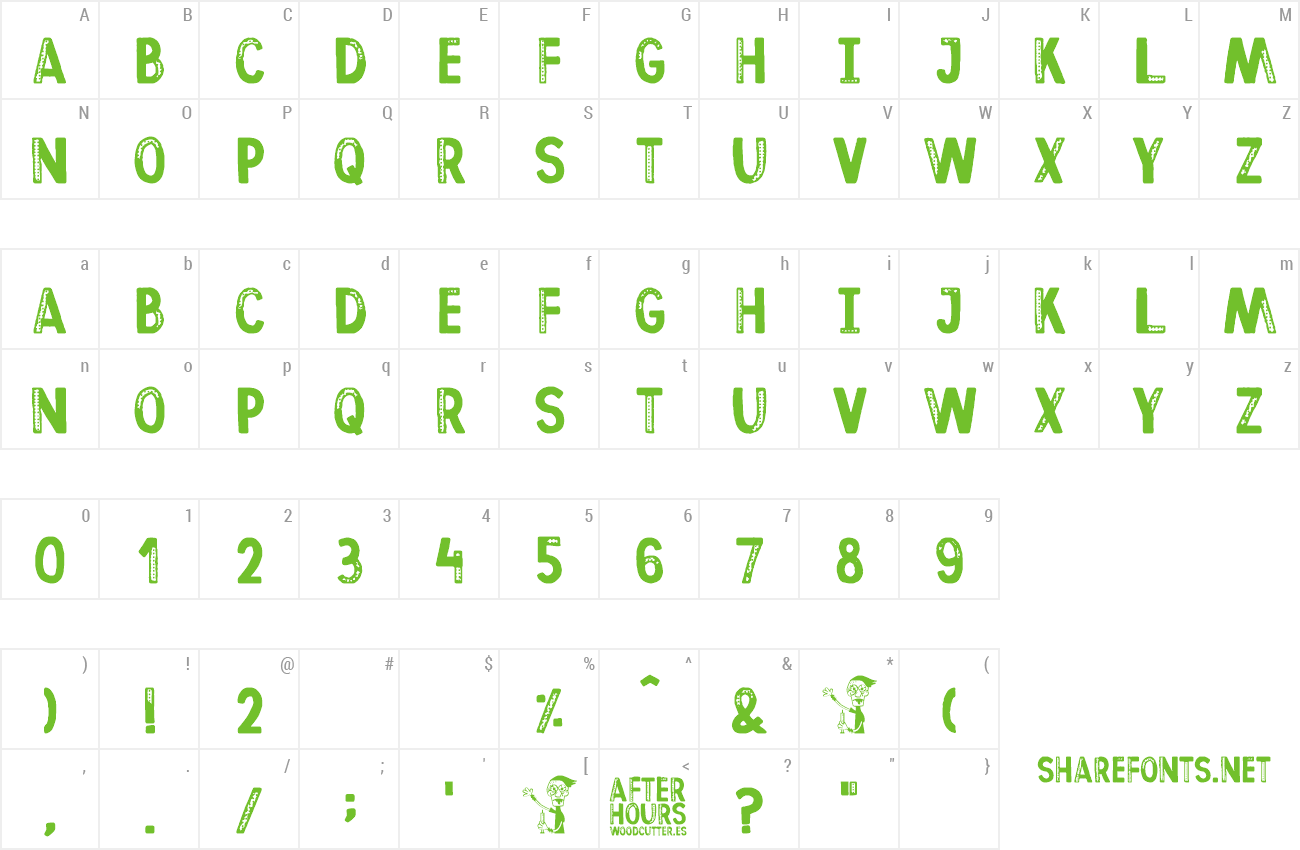
After Hours Font
After Hours Font - Web the weeknd after hours font. Archive of freely downloadable fonts. Web the time is now 13:42. The font is licensed for personal. Can you please identify this font ? Browse by alphabetical listing, by style, by author or. Web download the after hours font by ace fonts, a distorted and eroded font with faded grunge effects.
The font is licensed for personal. Web the weeknd after hours font. Web the time is now 13:42. Web download the after hours font by ace fonts, a distorted and eroded font with faded grunge effects. Archive of freely downloadable fonts. Can you please identify this font ? Browse by alphabetical listing, by style, by author or.
Web the weeknd after hours font. Archive of freely downloadable fonts. Browse by alphabetical listing, by style, by author or. Can you please identify this font ? Web the time is now 13:42. The font is licensed for personal. Web download the after hours font by ace fonts, a distorted and eroded font with faded grunge effects.
Afterhours Font Download
Browse by alphabetical listing, by style, by author or. Web the weeknd after hours font. Web the time is now 13:42. The font is licensed for personal. Web download the after hours font by ace fonts, a distorted and eroded font with faded grunge effects.
After Hours Font YouWorkForThem After hours, Hipster fonts
Archive of freely downloadable fonts. Web the weeknd after hours font. Can you please identify this font ? Web the time is now 13:42. Web download the after hours font by ace fonts, a distorted and eroded font with faded grunge effects.
After Hours Font Free Fonts
The font is licensed for personal. Web the time is now 13:42. Web download the after hours font by ace fonts, a distorted and eroded font with faded grunge effects. Browse by alphabetical listing, by style, by author or. Archive of freely downloadable fonts.
After Hours font by BLKBK Fonts FontRiver
Web the time is now 13:42. Web download the after hours font by ace fonts, a distorted and eroded font with faded grunge effects. Can you please identify this font ? Web the weeknd after hours font. Archive of freely downloadable fonts.
After Hours main title Fonts In Use
Archive of freely downloadable fonts. Can you please identify this font ? Web the weeknd after hours font. The font is licensed for personal. Web download the after hours font by ace fonts, a distorted and eroded font with faded grunge effects.
Download free After Hours Regular font
Browse by alphabetical listing, by style, by author or. Can you please identify this font ? Web the weeknd after hours font. Archive of freely downloadable fonts. The font is licensed for personal.
Afterhours Font download free
Web the weeknd after hours font. Web the time is now 13:42. Can you please identify this font ? Web download the after hours font by ace fonts, a distorted and eroded font with faded grunge effects. Browse by alphabetical listing, by style, by author or.
After Hours Font 1001 Free Fonts
Browse by alphabetical listing, by style, by author or. The font is licensed for personal. Web the weeknd after hours font. Archive of freely downloadable fonts. Web the time is now 13:42.
After Hours Regular Download For Free, View Sample Text, Rating And
Web download the after hours font by ace fonts, a distorted and eroded font with faded grunge effects. Browse by alphabetical listing, by style, by author or. Web the time is now 13:42. The font is licensed for personal. Archive of freely downloadable fonts.
Web download the after hours font by ace fonts, a distorted and eroded font with faded grunge effects. The font is licensed for personal. Web the time is now 13:42. Archive of freely downloadable fonts.
Web The Weeknd After Hours Font.